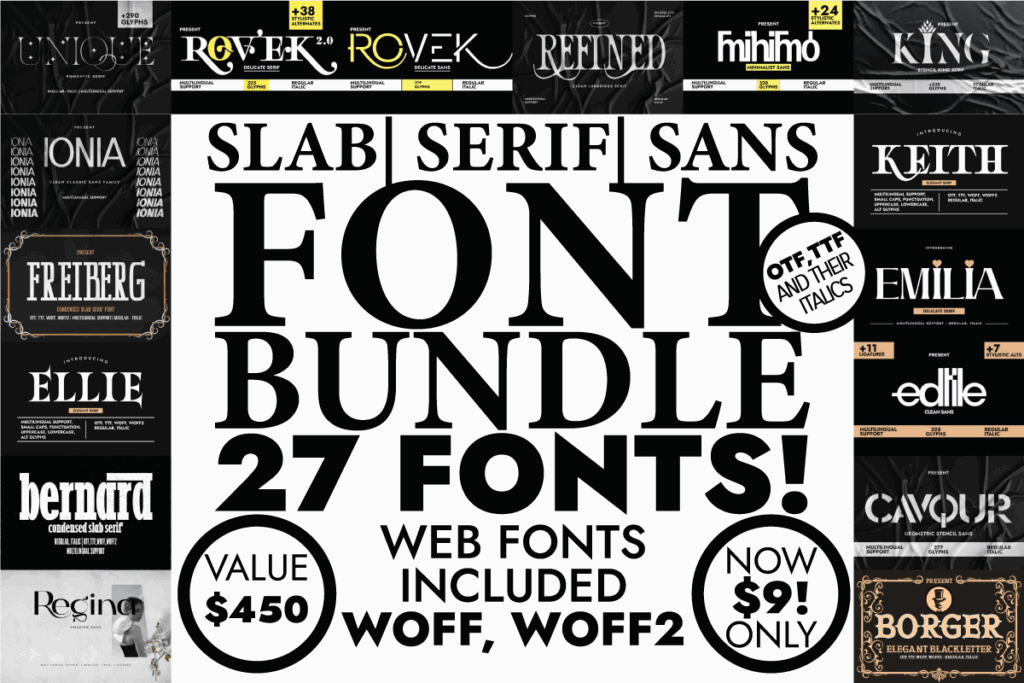
How the Best Serif Font Bundles for Packaging Improve a Brand
A strong serif typeface can make a package feel established before a shopper reads a single word. The best serif fonts bundle for packaging and label design gives you more than one attractive headline font—it gives you enough contrast, weight, and personality to build a complete visual hierarchy.
I looked for collections that could cover recognizable product names, flavor or scent variants, short supporting phrases, and brand marks. I also favored bundles with multiple serif personalities rather than sixteen nearly identical high-contrast display faces.
My take: the largest bundle is not automatically the most useful. A compact collection with a sturdy serif, an elegant display face, and a restrained text option may serve a packaging designer better than hundreds of decorative fonts.
- Best overall: Elegant Serif Font Bundle
- Best modern luxury option: Modern & Stylish Serif Font Mega Bundle
- Best for bold food and beverage labels: Slab, Serif, and Sans Serif Font Bundle
- Best for agencies and large product systems: The Ultimate Font Family Bundle
- Best for DIY makers: The Crafters Font Bundle
How I Picked These
I compared these bundles by packaging readability, display impact, serif variety, available weights and widths, small-label performance, hierarchy flexibility, software practicality, and how well each collection can support both a distinctive front-panel identity and functional supporting copy.
Best Serif Font Bundles for Packaging and Labels
1. Elegant Serif Font Bundle
The Elegant Serif Font Bundle is my strongest general recommendation for premium packaging. It contains 26 fonts and has a 5.0 rating based on 19 reviews, giving it more visible buyer feedback than most serif-only collections I found.
This is the type of bundle I would examine first for skincare bottles, candles, wine labels, confectionery boxes, and boutique stationery. An elegant serif can give the product name a refined presence without requiring an ornate frame or oversized logo.
The key is restraint. Use the most dramatic face for the brand or product name, then move ingredients, measurements, and functional copy into something simpler. A label becomes harder to scan when every line uses the same thin strokes and exaggerated contrast.
Best for: Beauty labels, candles, wine, premium gifts
Key features: 26 serif fonts, elegant styling, broad premium-brand potential, strong review activity
2. Modern & Stylish Serif Font Mega Bundle
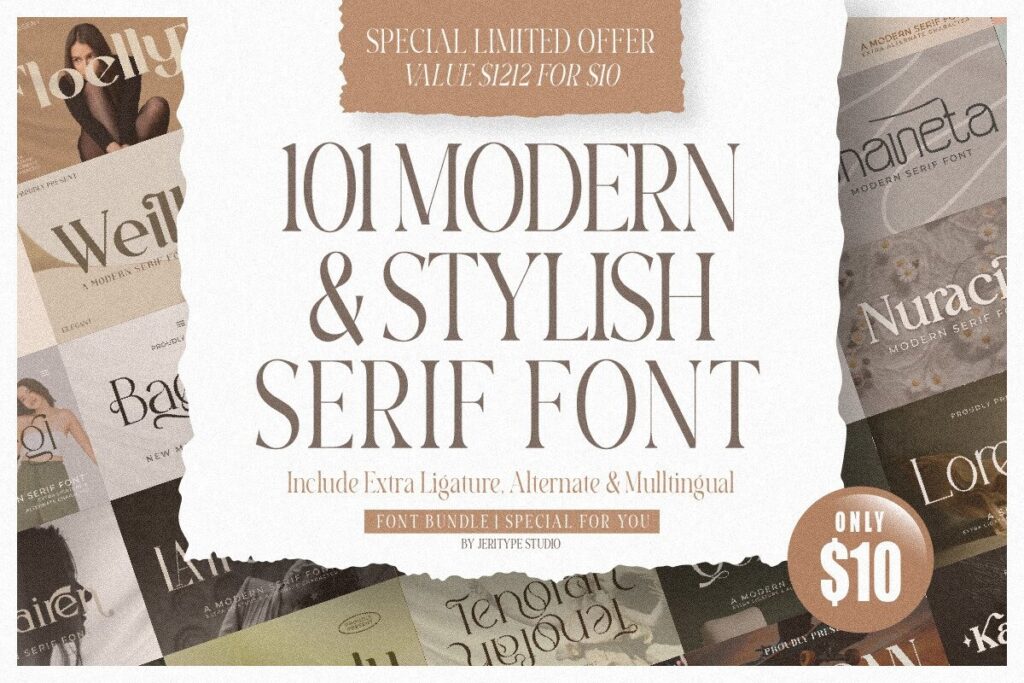
I like this option for brands that want editorial energy rather than old-world formality. Modern display serifs can make cosmetic cartons, perfume labels, jewelry boxes, and fashion accessories feel current while retaining more character than a neutral sans serif.
This type of collection is especially useful when a product line has multiple variants. You can keep one recognizable serif structure across the range, then change weight, case, spacing, or supporting typography to distinguish each item.
I would skip an aggressively high-contrast font for tiny directions or warnings. Hairline details that look crisp in a digital preview may become fragile after printing, coating, embossing, or reduction.
Best for: Fashion, cosmetics, perfume, editorial-style packaging
Key features: Modern serif focus, mega-bundle scope, high review count, suitable for display hierarchy
3. Professional Modern Serif Font Bundle
The Professional Modern Serif Font Bundle includes 50 serif fonts and carries a 5.0 rating from 12 reviews. Its listing specifically positions the collection for logo design, stationery, posters, and related identity work. The bundle is currently marked expired.
Even with that availability limitation, it is a useful reference point for what a packaging-focused serif library should contain: restrained options, expressive display faces, and enough tonal range to move between conservative and fashion-led branding.
A 50-font collection also makes sense for agencies or designers handling several clients. One coffee roaster may need a heritage serif, while a clean-beauty brand may need narrow capitals with generous spacing.
Because it is expired, I would not build a client proposal around acquiring it today. Consider it only if you already own the files or the page becomes available again.
Best for: Agencies, multi-brand work, identity systems
Key features: 50 fonts, modern and professional range, 12 reviews, currently expired
4. Serif Font Bundle
The simply named Serif Font Bundle collects 20 fonts. Its page shows a 5.0 score from two reviews and lists faces such as Vogue, Octavian, Magazine, Dolce, Fashion, Cosmopolitan, and Imperial Force.
How many fonts should I use on product packaging?
Two coordinated typefaces are usually enough: one expressive font for the product identity and one highly legible font for supporting information. A third may be useful for a complex brand system, but it should have a clearly defined role.